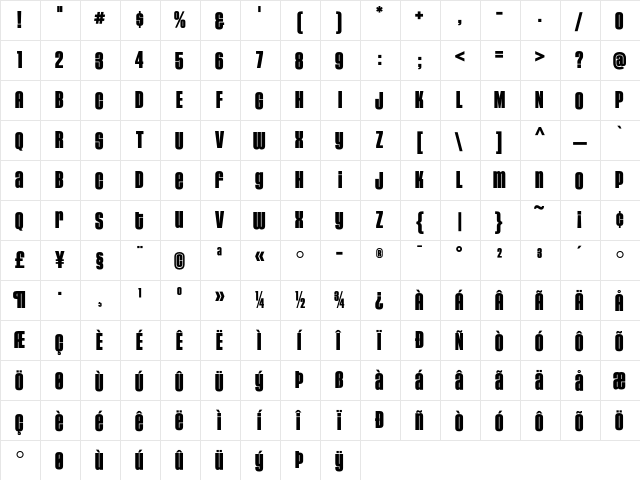
HouseGothicHG23Cond BLACK
| Designer | Allen Mercer/Tal Leming |
Design Context for HouseGothicHG23Cond Typeface
HouseGothicHG23Cond takes a clean, functional approach — its unadorned letterforms prioritise legibility and work reliably across screen and print environments. The condensed width makes it efficient for tight spaces without sacrificing legibility.
Font Pairing: Works well alongside a characterful serif or display font that can carry the expressive load while HouseGothicHG23Cond handles the functional copy.
Pro Tip: Try HouseGothicHG23Cond in all-caps with moderate tracking for navigation and label copy — it performs well in systematic UI contexts.